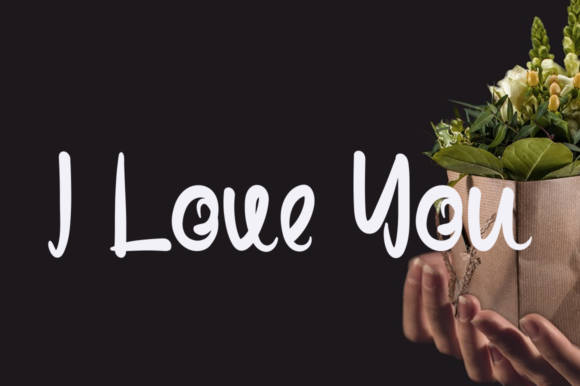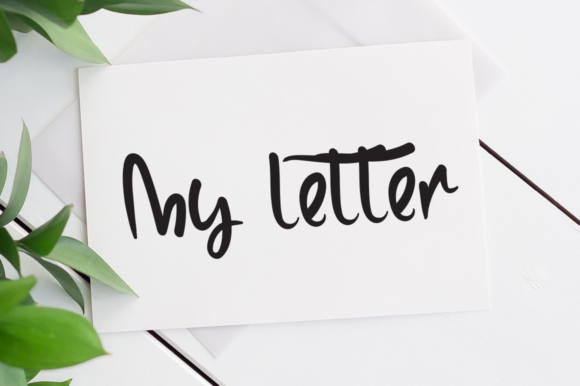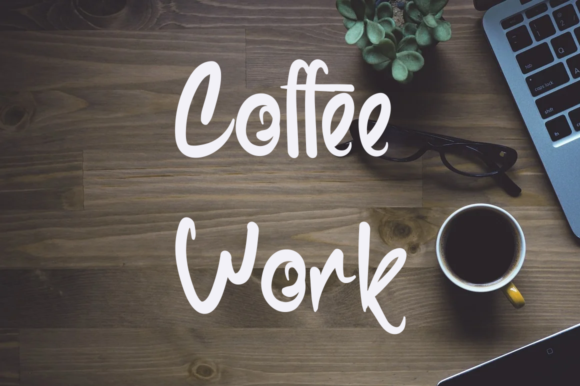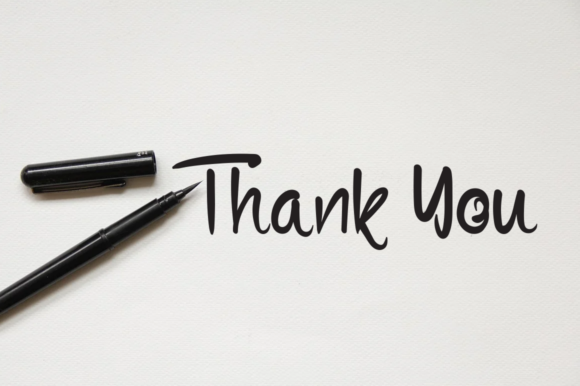
Introducing Happy Mom Font: The Perfect Addition to Your Design Projects
Are you a designer or crafter looking for a font that can add a touch of joy and romance to your projects? Look no further than the Happy Mom Font! This beautiful, cursive handwritten font is perfect for a variety of design ideas and is sure to make your projects stand out.
What is Happy Mom Font?
Happy Mom is a dainty, genuine, and cursive handwritten font that is designed to bring a sense of happiness and warmth to your designs. Its gentle and flowing curves make it perfect for creating beautiful and eye-catching text-based designs. Whether you’re working on a project for a client or creating something for your own personal use, Happy Mom Font is sure to impress.
Characteristics of Happy Mom Font
So, what makes Happy Mom Font so special? Here are just a few of its key characteristics:
- Dainty and genuine: Happy Mom Font has a delicate and authentic feel that makes it perfect for creating designs that are both feminine and elegant.
- Cursive handwritten: The font’s cursive and handwritten style gives it a personal and touchable feel that is sure to connect with your audience.
- Versatile: Happy Mom Font can be used on a wide range of design projects, from invitations and greeting cards to branding and packaging.
How to Use Happy Mom Font
Happy Mom Font is incredibly easy to use and can be incorporated into a variety of design projects. Here are just a few ideas to get you started:
- Invitations and greeting cards: Add a touch of elegance and sophistication to your invitations and greeting cards with Happy Mom Font.
- Branding and packaging: Use Happy Mom Font to create beautiful and eye-catching branding and packaging designs that will help your products stand out.
- Social media graphics: Add a personal touch to your social media graphics with Happy Mom Font and make your content more engaging and shareable.
- Blog and website design: Use Happy Mom Font to create beautiful and elegant blog and website designs that will make your content more readable and enjoyable.
Benefits of Using Happy Mom Font
So, why should you choose Happy Mom Font for your design projects? Here are just a few of the benefits of using this beautiful font:
- Unique and eye-catching: Happy Mom Font is a unique and eye-catching font that will help your designs stand out from the crowd.
- Emotional connection: The font’s gentle and cursive style creates an emotional connection with your audience and makes your designs more relatable.
- Easy to read: Happy Mom Font is incredibly easy to read, making it perfect for use on a wide range of design projects.
- Versatile: The font’s versatility means that it can be used on a wide range of design projects, from invitations and greeting cards to branding and packaging.
Tips for Getting the Most Out of Happy Mom Font
Here are just a few tips for getting the most out of Happy Mom Font:
- Experiment with different colors: Happy Mom Font looks great in a wide range of colors, so don’t be afraid to experiment and find the perfect color for your design.
- Use it with other fonts: Happy Mom Font pairs perfectly with other fonts, so try using it with a bold font to create a beautiful contrast.
- Pay attention to spacing: Make sure to pay attention to the spacing between letters and words to ensure that your design looks beautiful and elegant.
In conclusion, Happy Mom Font is a beautiful and versatile font that is perfect for a wide range of design projects. Its dainty, genuine, and cursive handwritten style makes it perfect for creating designs that are both feminine and elegant. With its ease of use, emotional connection, and versatility, Happy Mom Font is sure to become a favorite among designers and crafters. So why not give it a try and see the difference it can make in your designs?